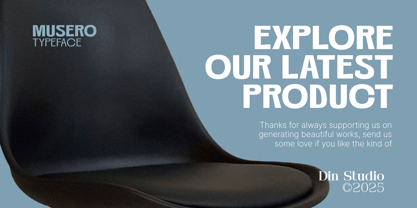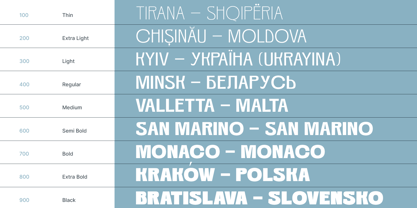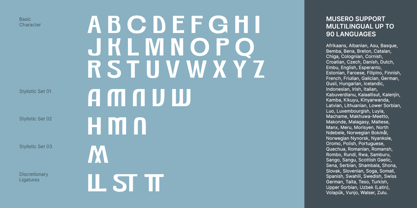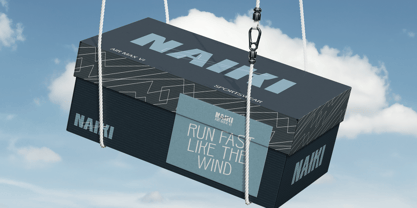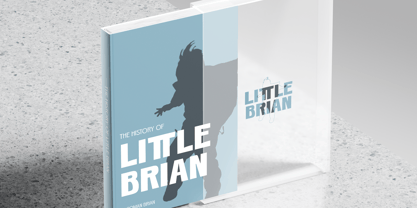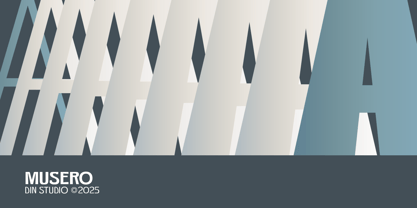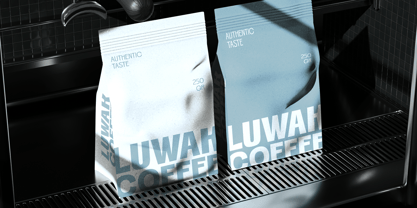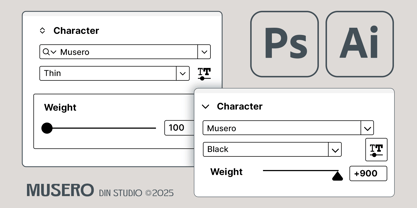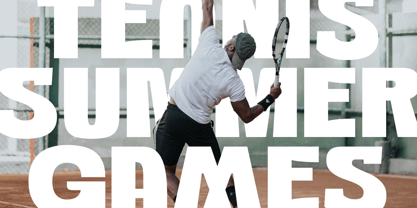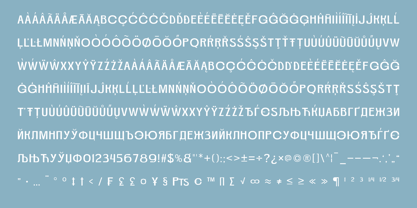
Musero
by Din Studio
The Musero Font Family was designed by Donis Miftahudin and published by Din Studio. Musero contains 9 styles and family package options. More about this family
Musero is a striking sans serif display font family designed to embody modern elegance with a bold, contemporary spirit. Featuring nine carefully balanced weights from Thin to Black, Musero delivers exceptional versatility. Its clean geometric lines and refined proportions create a confident, sleek aesthetic that feels fresh yet timeless. Musero brings a distinct sense of style and modern refinement to every design. In addition, enjoy the features here.
Features:
• Multilingual Supports
• Numerals and Punctuations